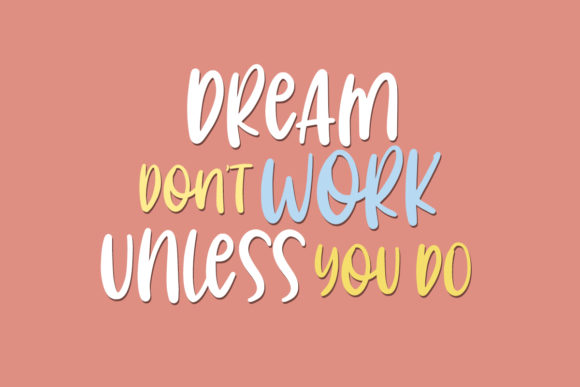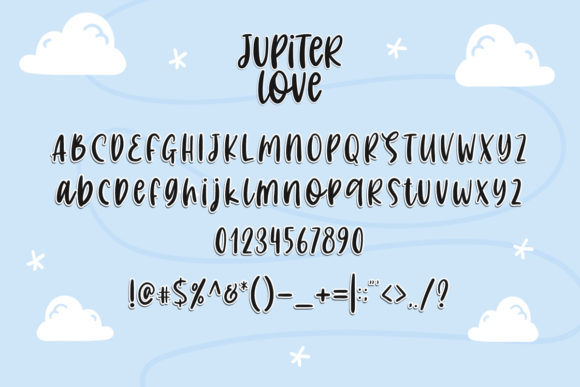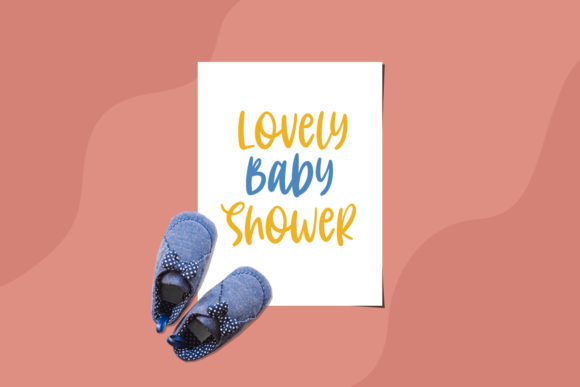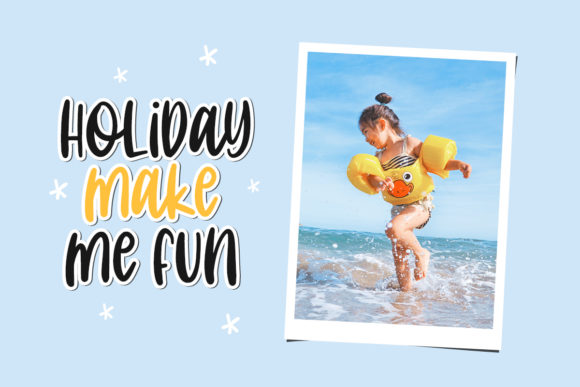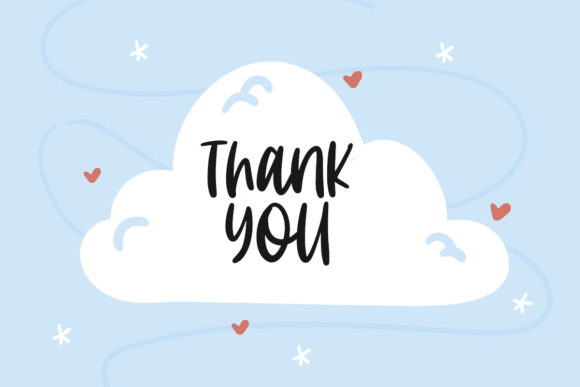
Introduction to Jupiter Love Font
As designers, we’ve all been there – stuck on a creative project, struggling to find the perfect font to elevate our design. The search can be overwhelming, but what if we told you that we’ve found a hidden gem that will make your design stand out? Meet the Jupiter Love Font, a beautiful, handwritten font that’s sure to capture the hearts of designers and design enthusiasts alike.
Handcrafted with love and care, this font is a true treasure for any creative project. Whether you’re working on a design that requires a touch of whimsy or a high-end project that demands sophistication, the Jupiter Love Font is the perfect design resource to have in your arsenal.
Key Features of Jupiter Love Font
- Unique, hand-drawn design inspired by celestial themes, perfect for creative projects and designs that require a touch of whimsy.
- Includes a range of characters, including uppercase and lowercase letters, numbers, and punctuation marks, making it a versatile font for various creative applications.
- Designed to be highly legible and visually appealing, making it an ideal choice for designers working on a variety of creative projects, from digital designs to print materials.
Honest Review: Jupiter Love Font
I recently stumbled upon the Jupiter Love Font and I must say, it’s been a game-changer for my creative projects. The moment I downloaded it, I was impressed by its high quality and versatility.
- ⚠️ The font may not be suitable for all design styles, as it has a quite distinct and playful feel to it.
Overall, I’m thoroughly impressed with the Jupiter Love Font. Its unique design and flexibility make it a valuable addition to my design resource arsenal. If you’re looking for a high-quality font for your creative project, I’d definitely recommend giving it a try.
Jupiter Love Font
The Jupiter Love Font is ideal for various creative projects, including:
Logo designs, branding materials, and marketing collateral.
Wedding invitations, event promotions, and social media graphics.
Blog posts, articles, and e-books requiring a touch of elegance and sophistication.